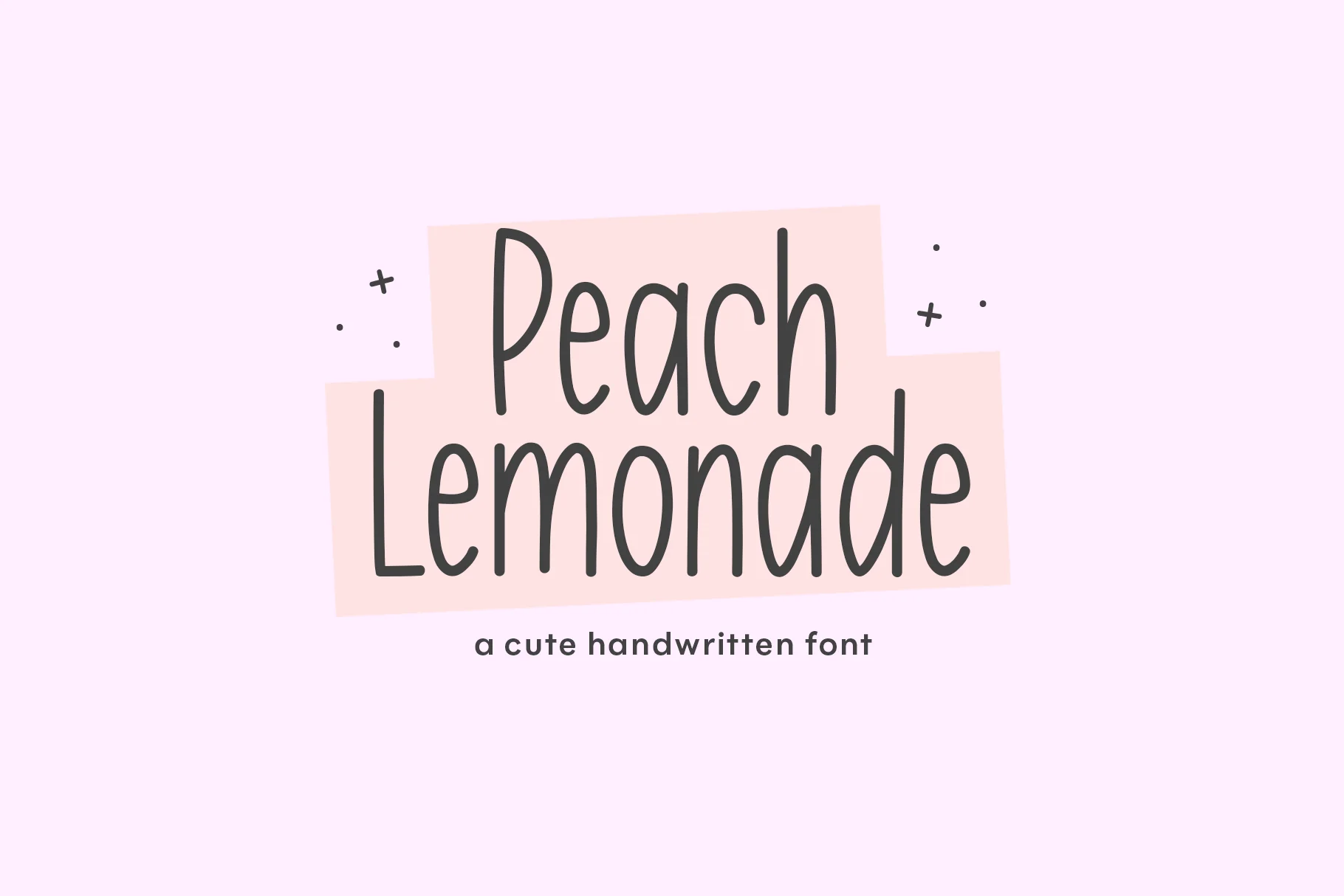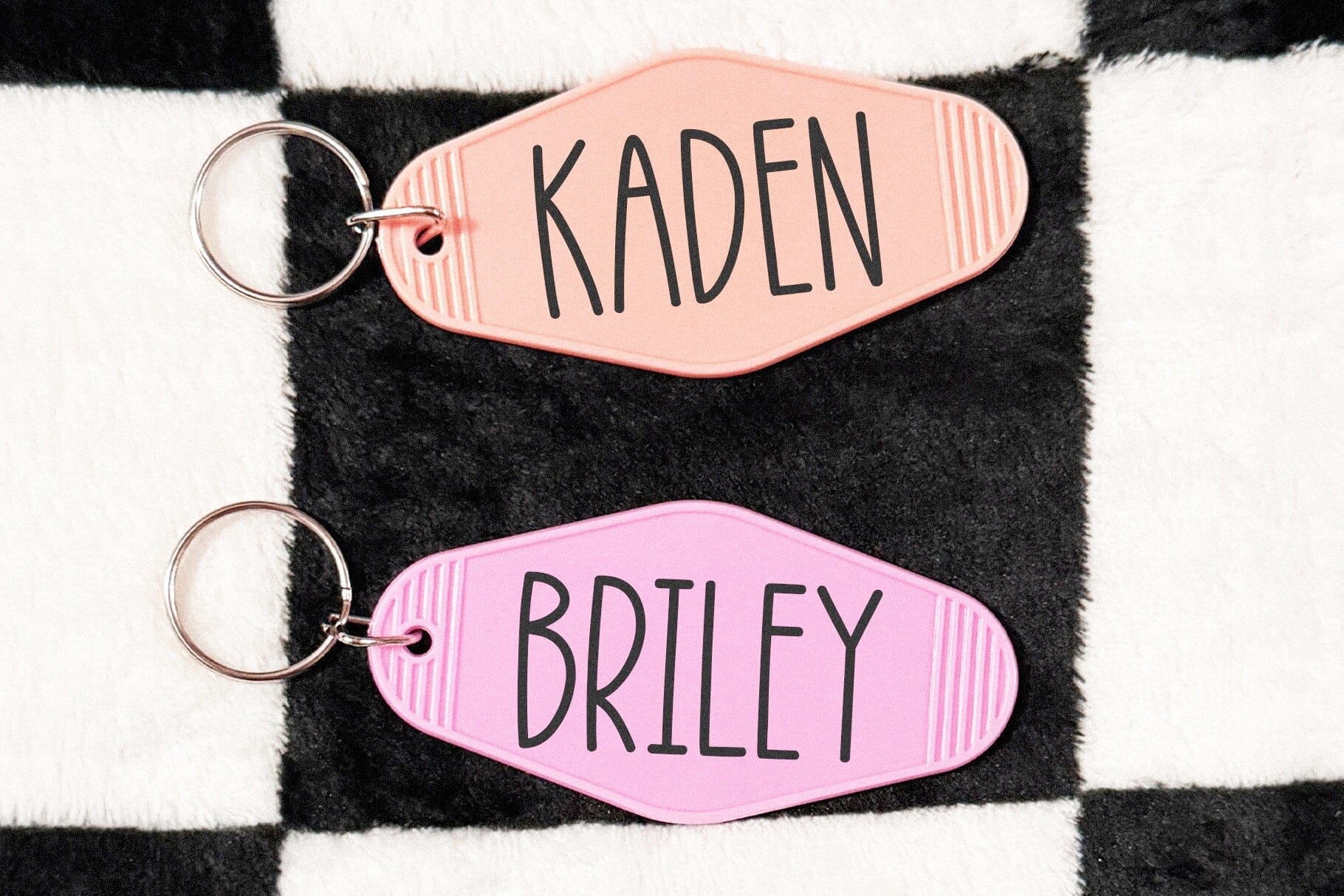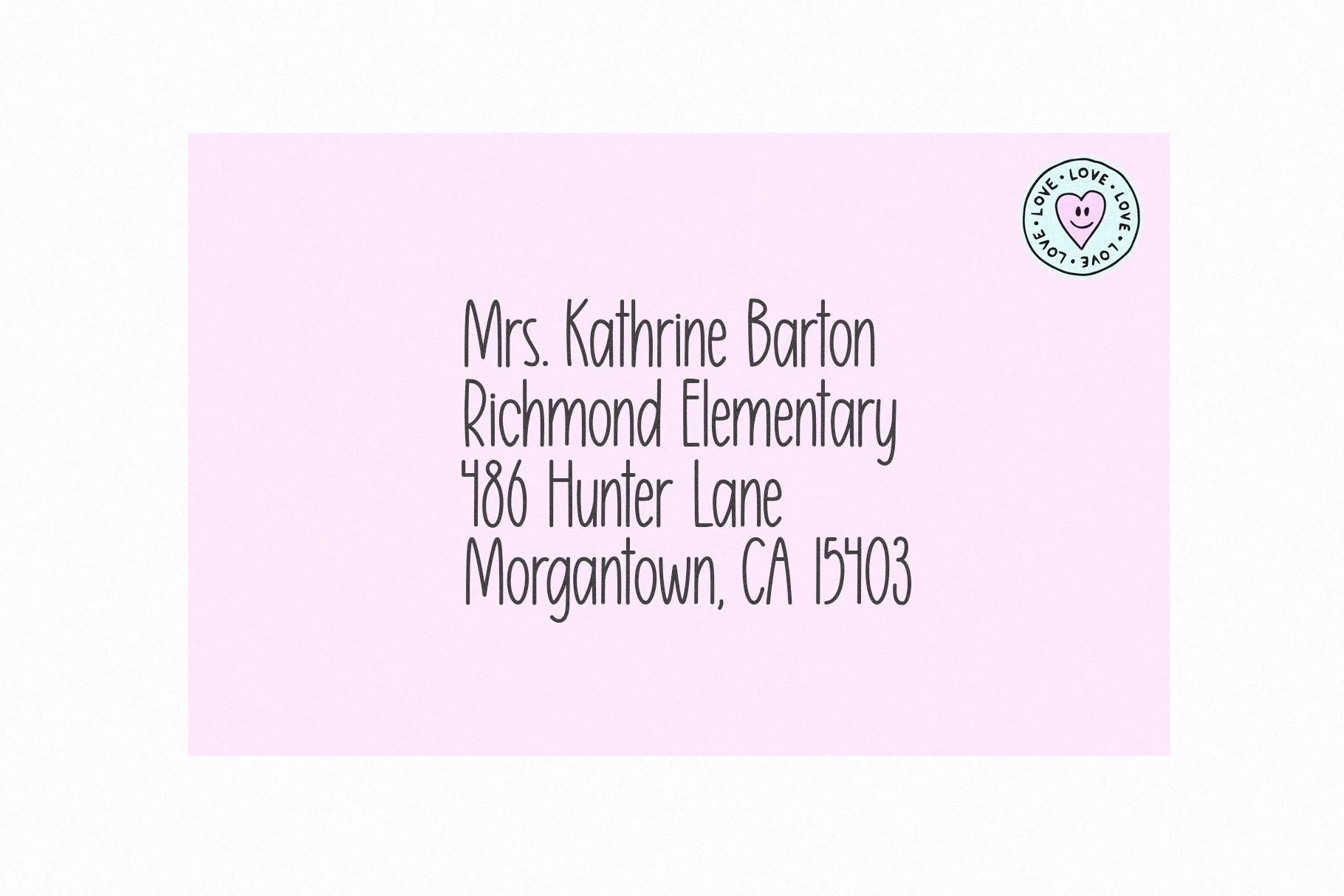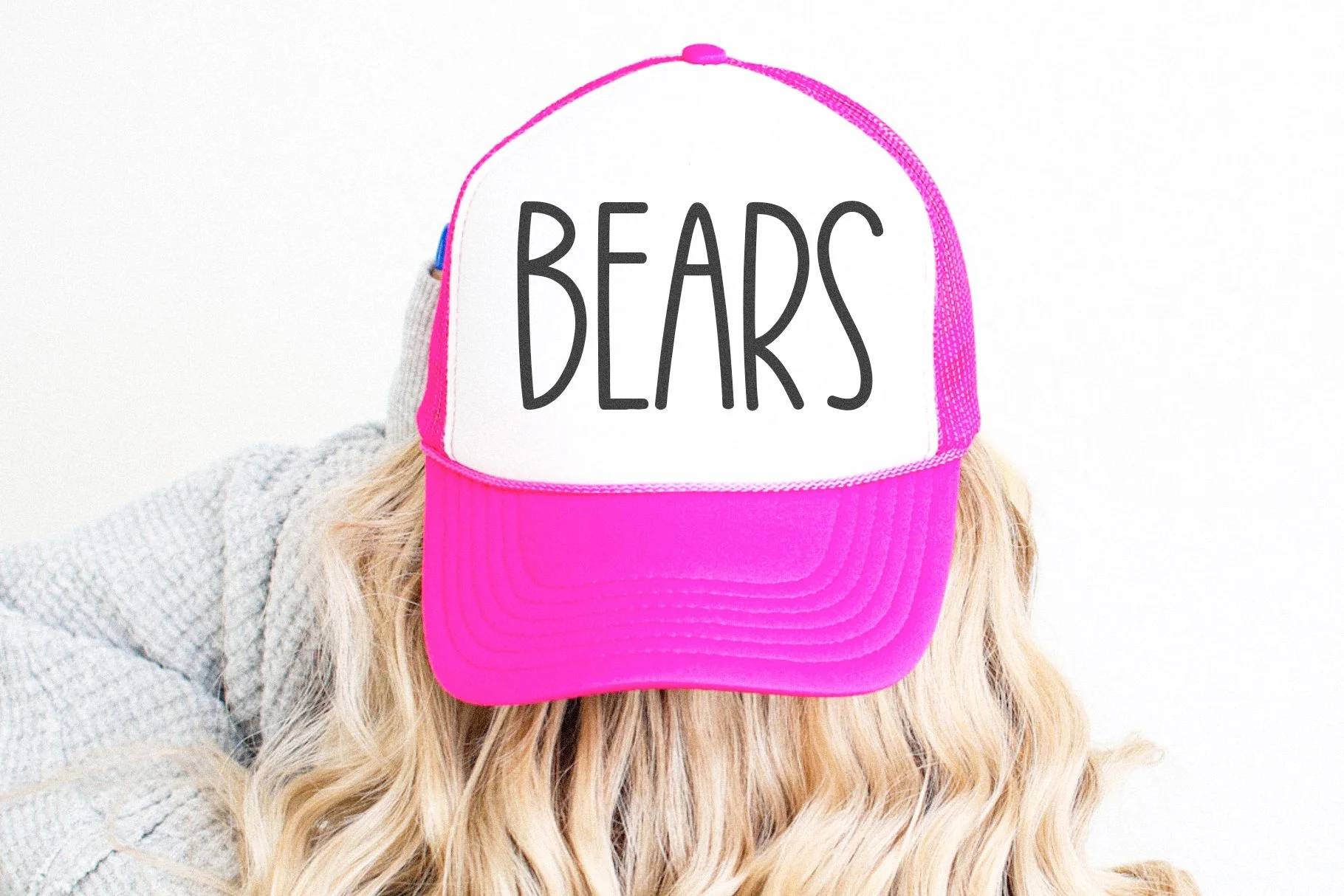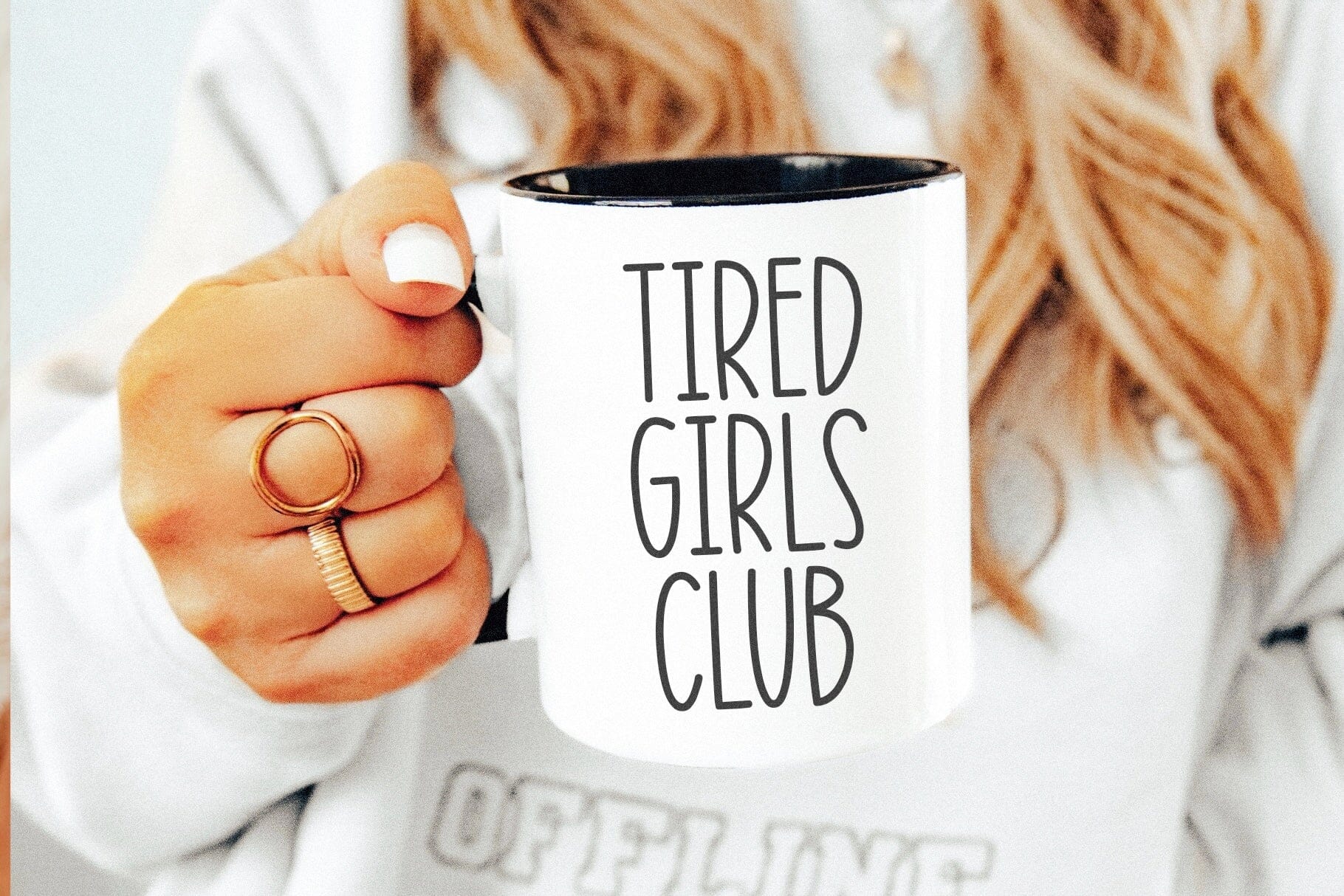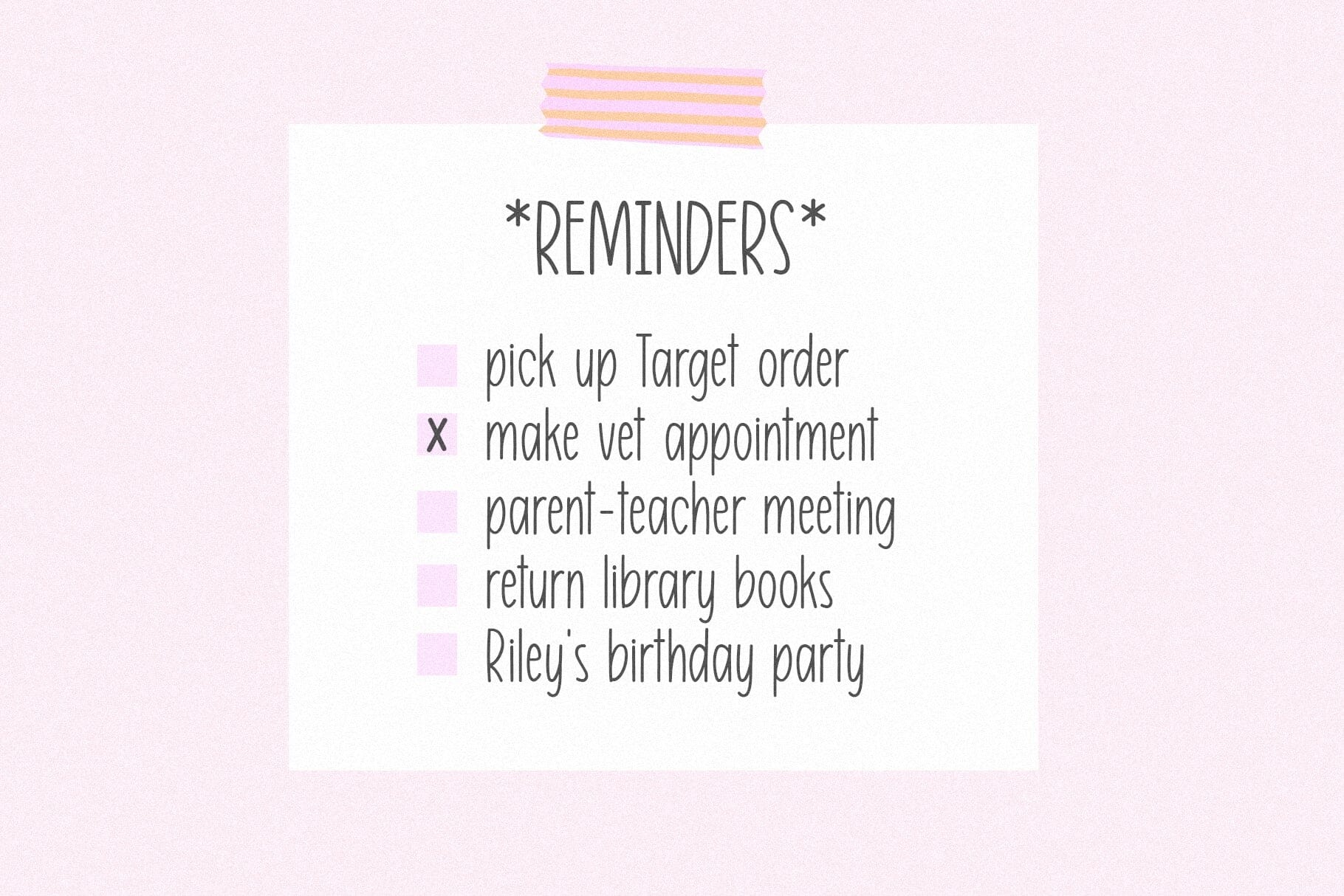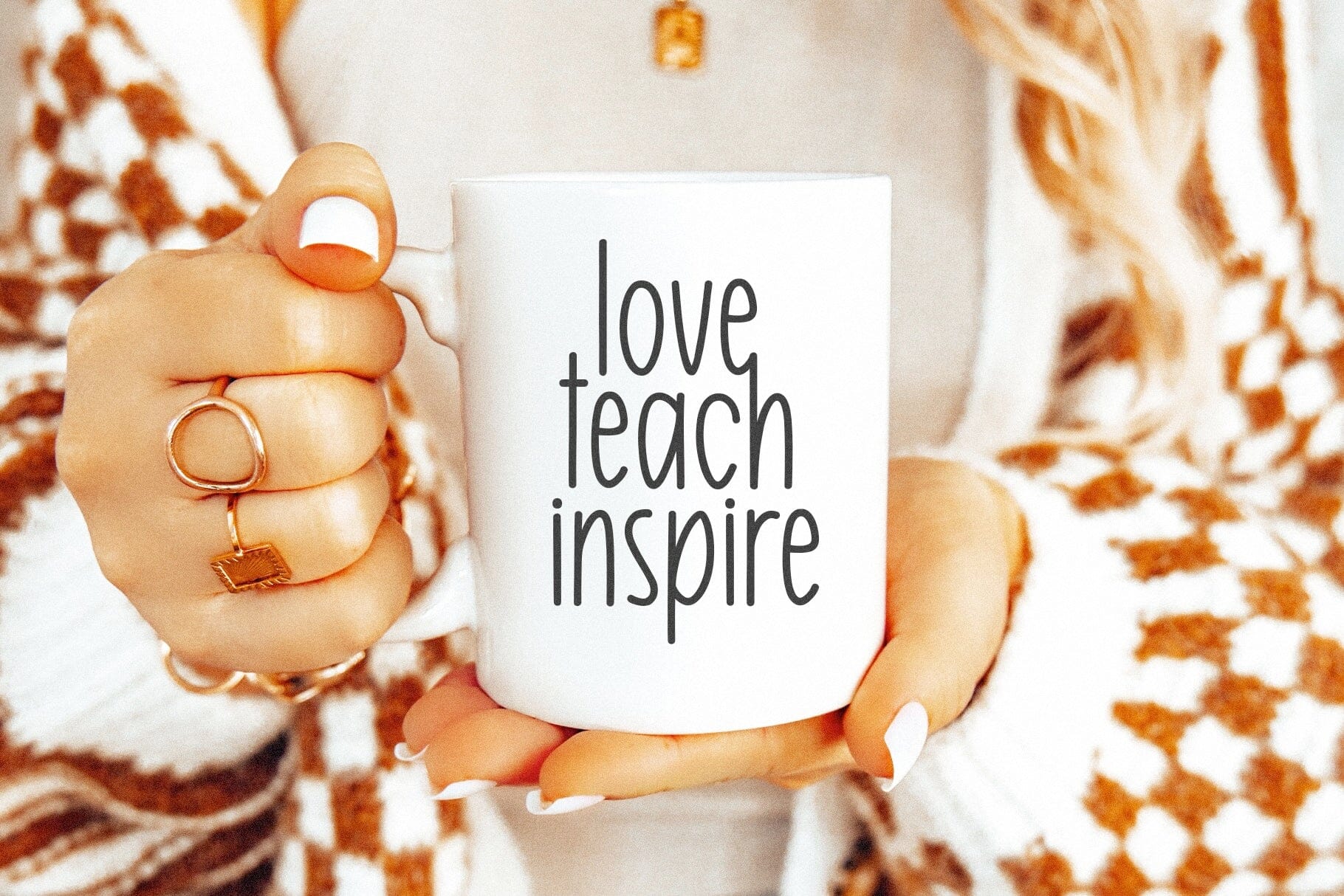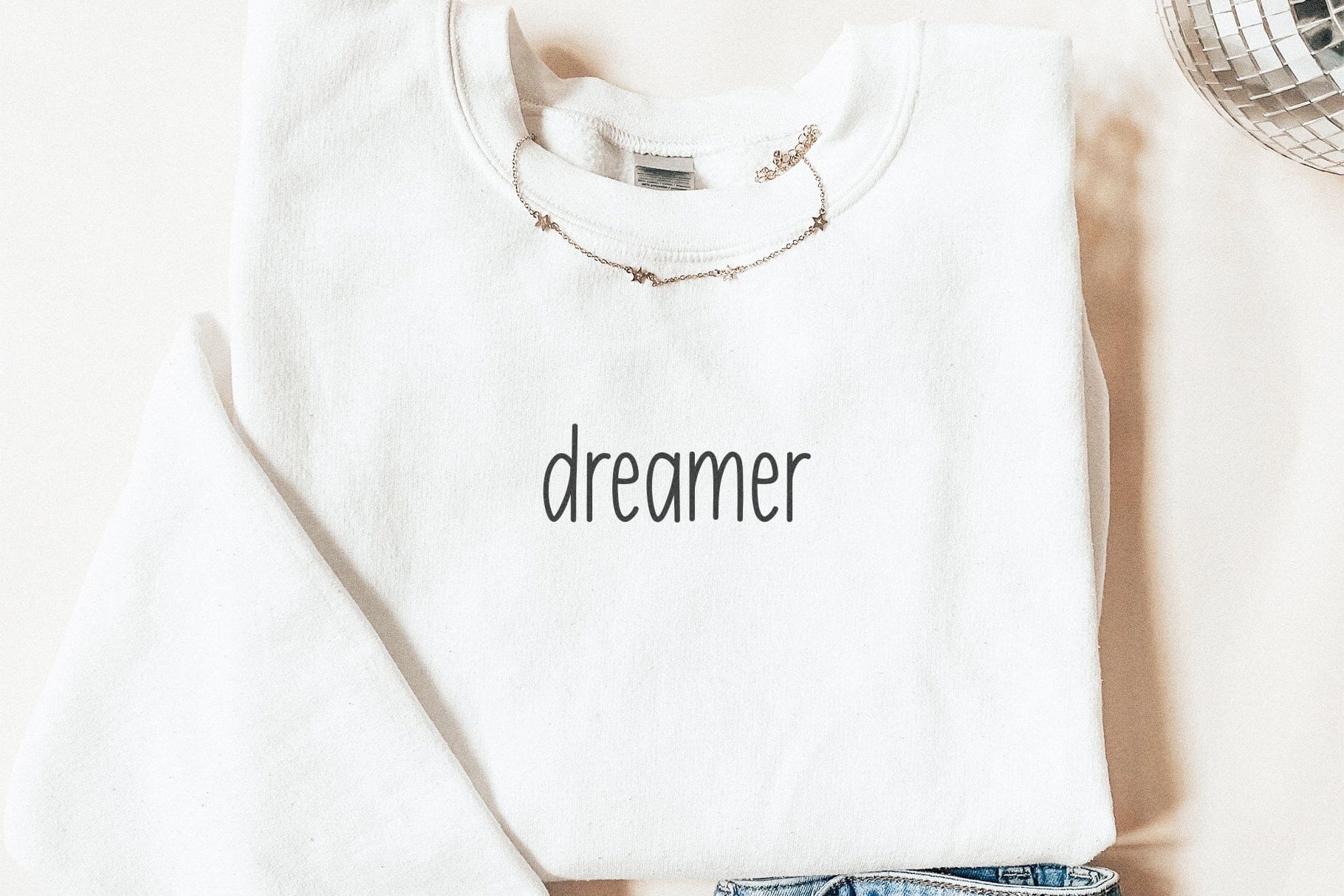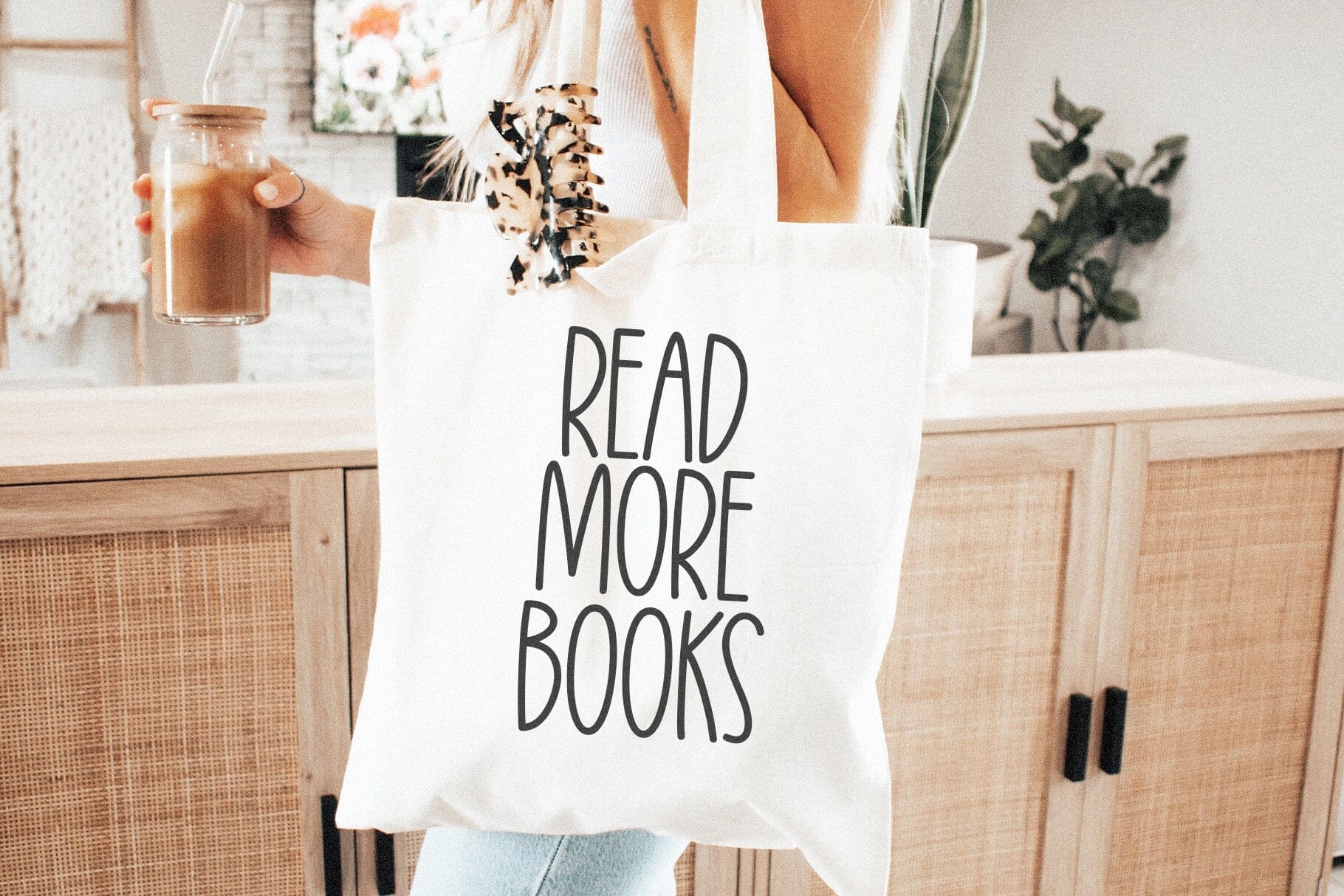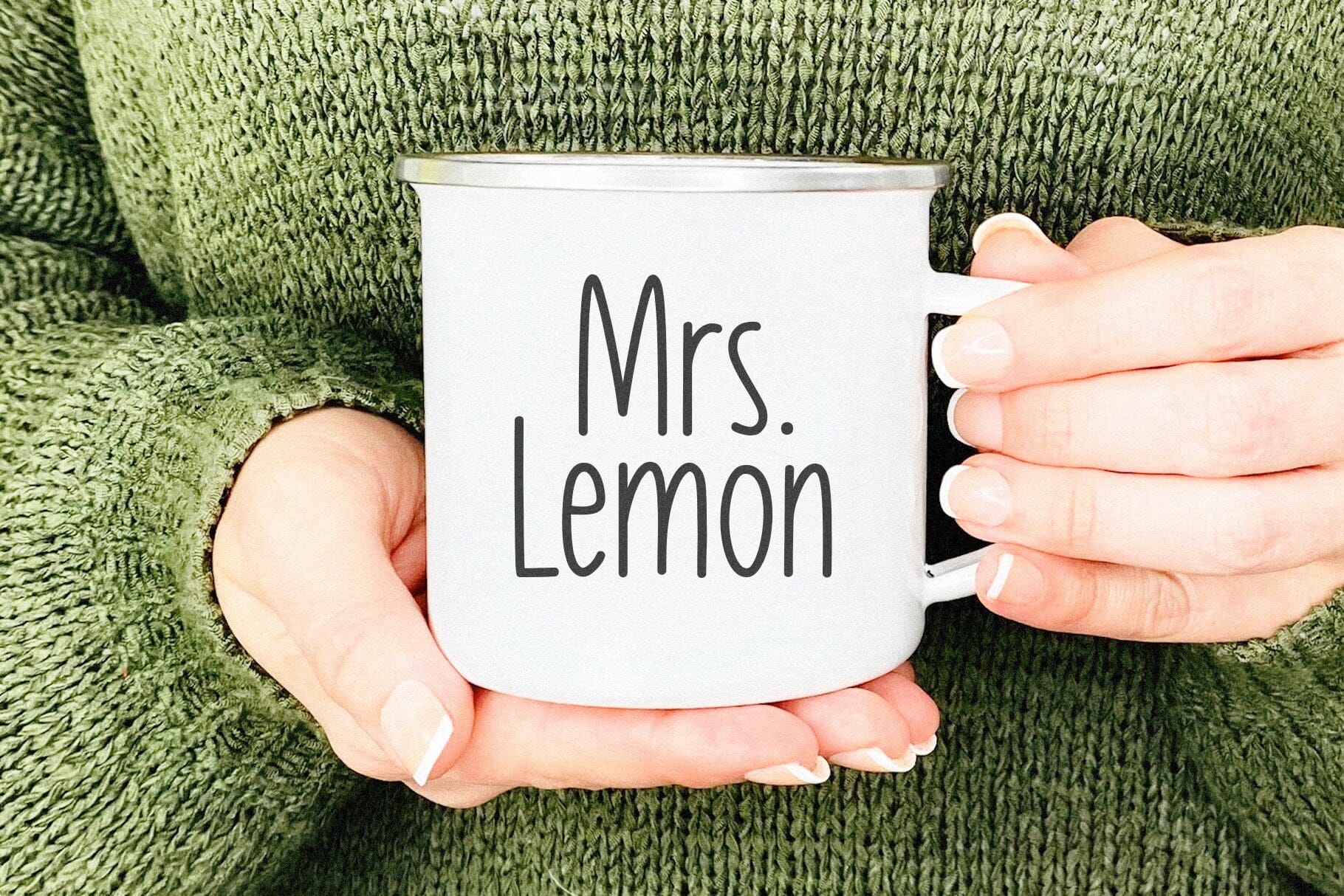
Peach Lemonade - Cute Handwritten Font
Peach Lemonade is a cute handwriting font!
This font is perfect for cricut projects, logos, shirts, svg files, planners, stickers, quotes, social media and more!